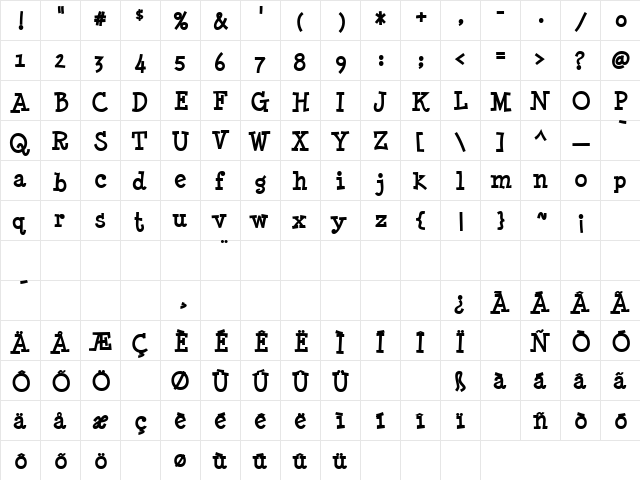
Minya Nouvelle Bold
Design Context for Minya Nouvelle Typeface
Minya Nouvelle is a composed and adaptable typeface that performs quietly and consistently across a wide range of design contexts. The heavy weight commands attention and anchors typographic hierarchies.